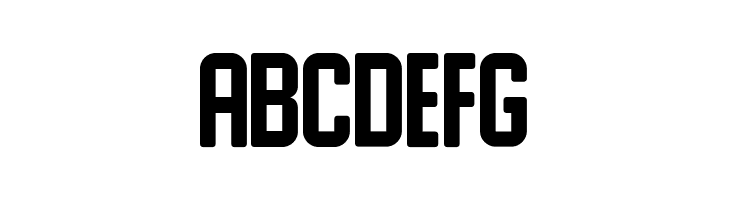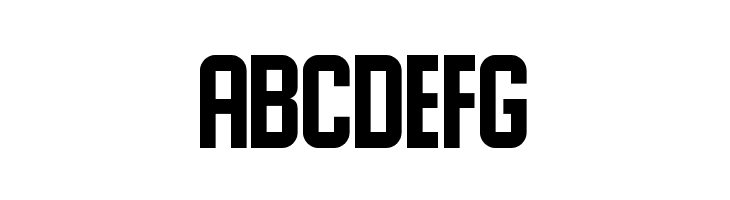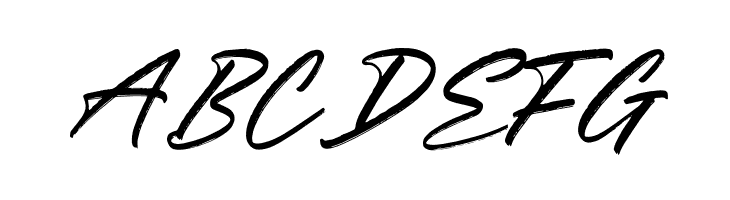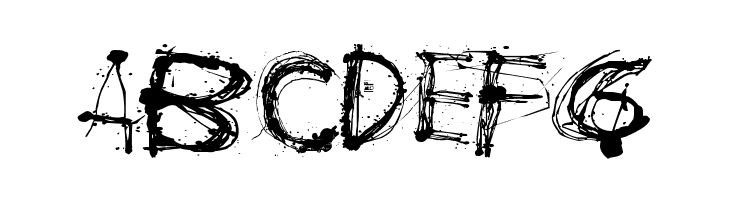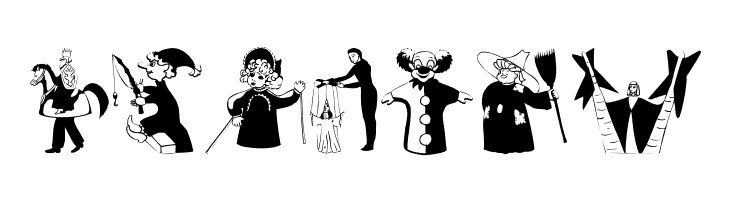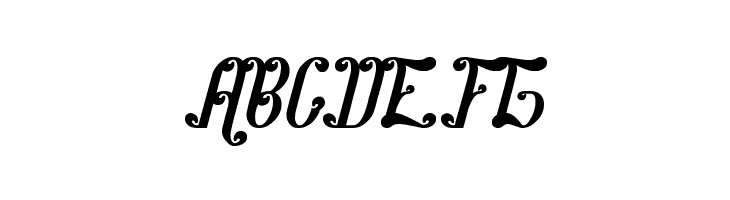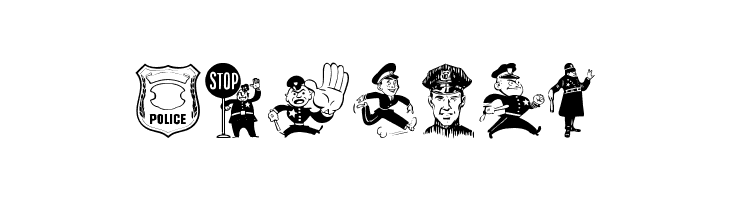
A dynamic and elegant script font with flowing cursive letters.
A chaotic, grunge-style font with splattered, energetic brushstrokes.
A decorative font inspired by Polynesian art, featuring intricate geometric patterns.
A bold, geometric font with a modern and robust aesthetic.
A bold, rounded font with smooth curves and a modern, approachable style.
A playful, puppet-themed decorative font with illustrated characters for each glyph.
A modern, geometric font with an industrial touch, featuring bold uppercase and softer lowercase letters.
A modern, geometric font with clean lines and rounded edges.